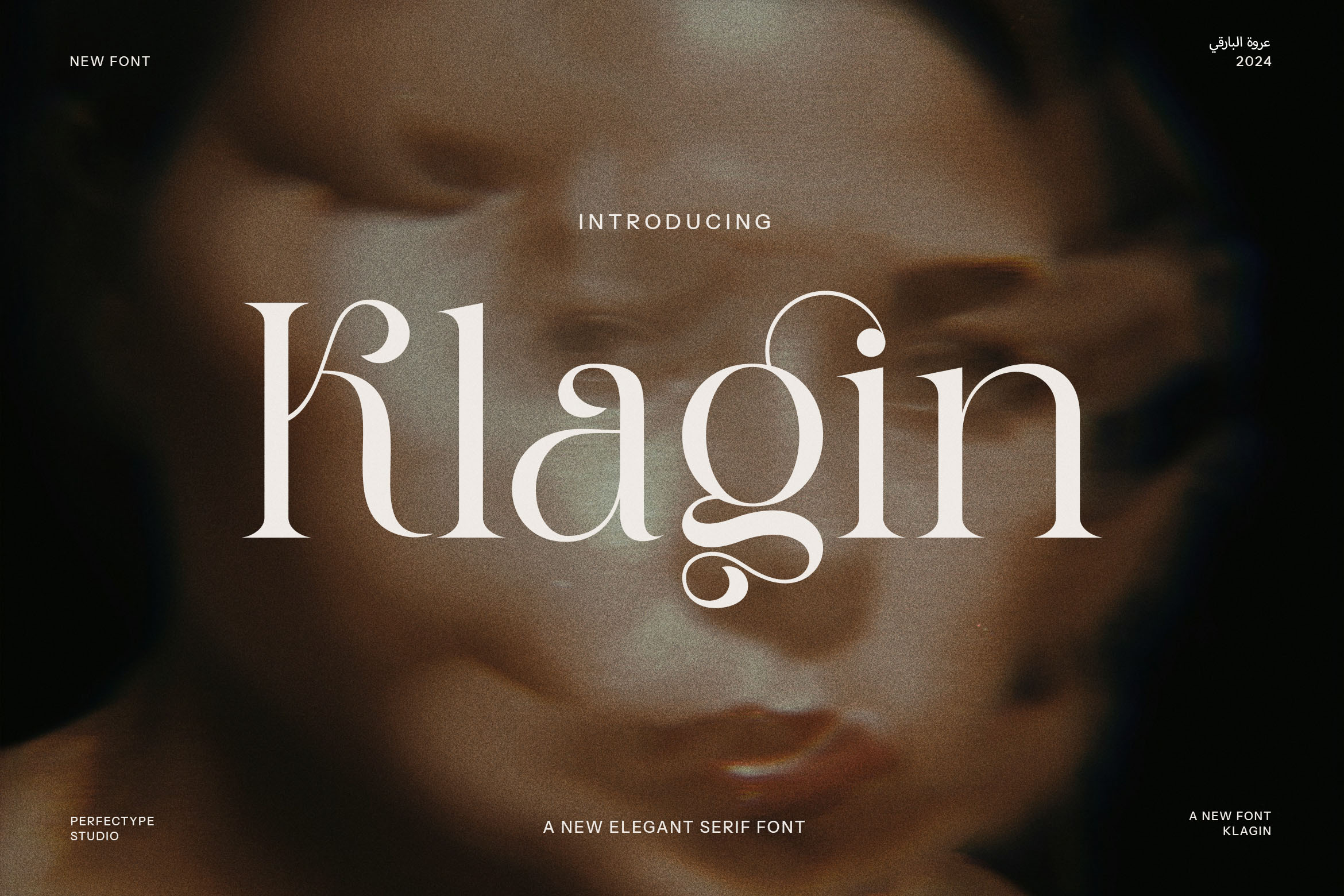
Klagin Elegant Serif Font
Klagin Elegant Serif Font is the perfect fusion of modern sophistication and timeless elegance. Crafted with precision, this stunning serif typeface offers a unique blend of sharp contrasts and graceful curves that make it stand out in any design. Its distinctive ligatures and alternate characters add an exquisite touch, making Klagin a versatile choice for creative professionals seeking something truly special.
Ideal for high-end branding, luxurious logo designs, and captivating magazine layouts, Klagin brings a sense of refinement to any project. Whether you're designing a website, an advertisement, or a boutique label, this font seamlessly elevates the aesthetic of your work. Its thoughtful design ensures legibility while maintaining an air of exclusivity and class, making it equally at home in both digital and print mediums.
Klagin's elegance extends beyond its individual letters; its harmonious blend of traditional serif structure with a contemporary flair makes it a perfect choice for premium product packaging, food and beverage branding, and editorial publications. The font’s carefully crafted ligatures and stylish alternates give every composition a distinctive edge, ensuring that your designs not only catch the eye but also leave a lasting impression.
Whether you're building a brand from scratch or looking to elevate an existing one, Klagin Elegant Serif Font is a must-have tool in your design arsenal. Its flexibility and timeless beauty offer endless possibilities for creating refined, modern, and memorable visual identities.